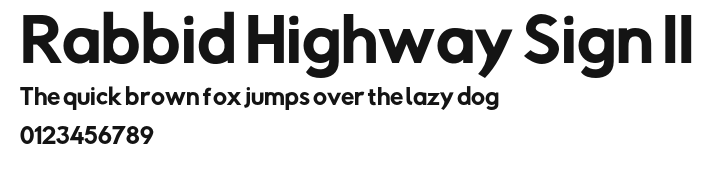
Rabbid Highway Sign II Preview
• Font Name: Rabbid Highway Sign II
• Full Font Name: Rabbid Highway Sign II
• Manufacturer: Cannot Into Space Fonts
About Rabbid Highway Sign II.otf
Rabbid Highway Sign II.otf is a modern, elegant sans-serif font designed for ultimate readability and visual harmony. Perfect for branding, headlines, web design, and print materials.